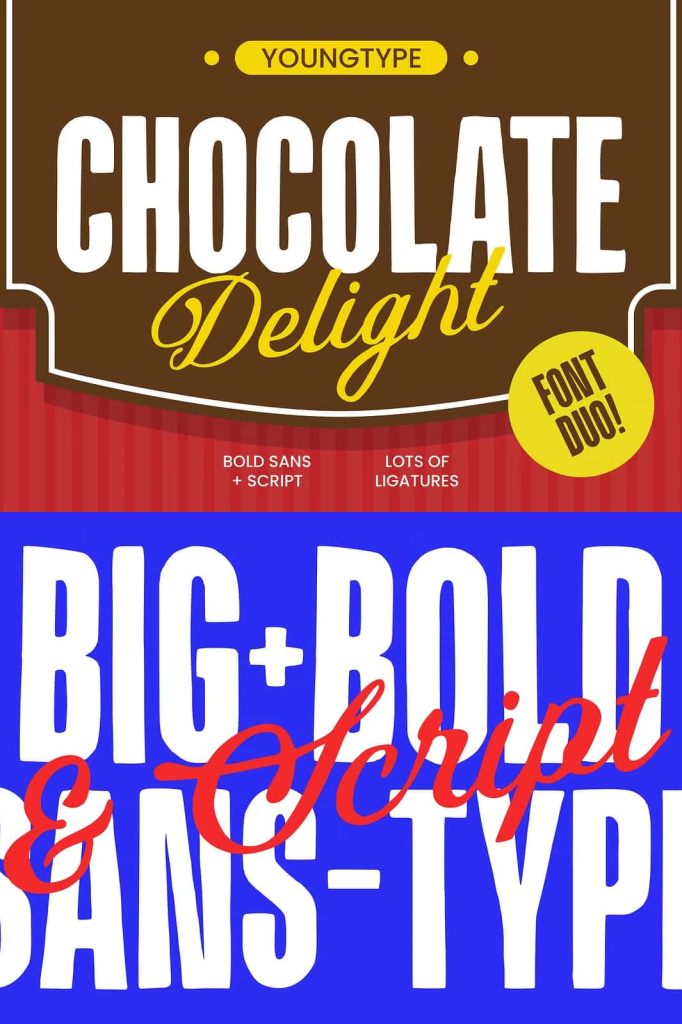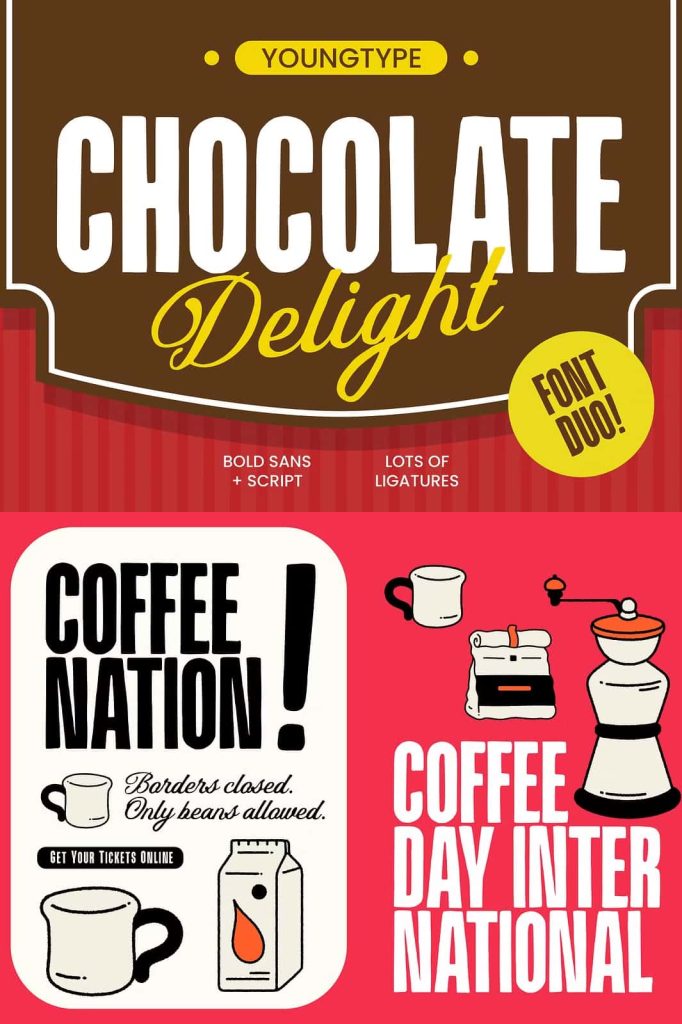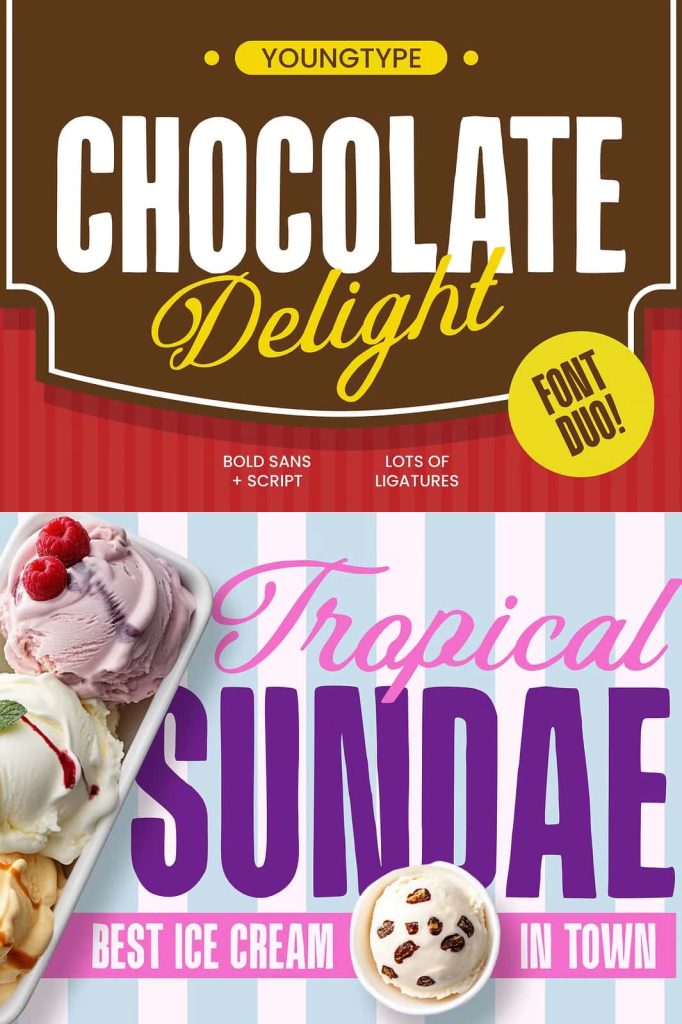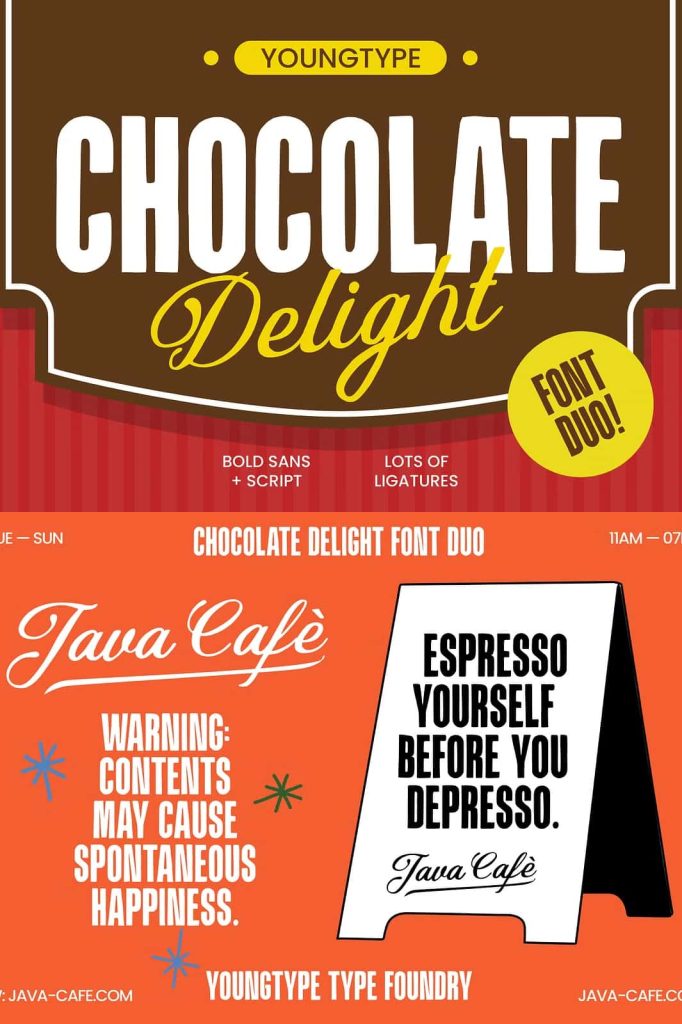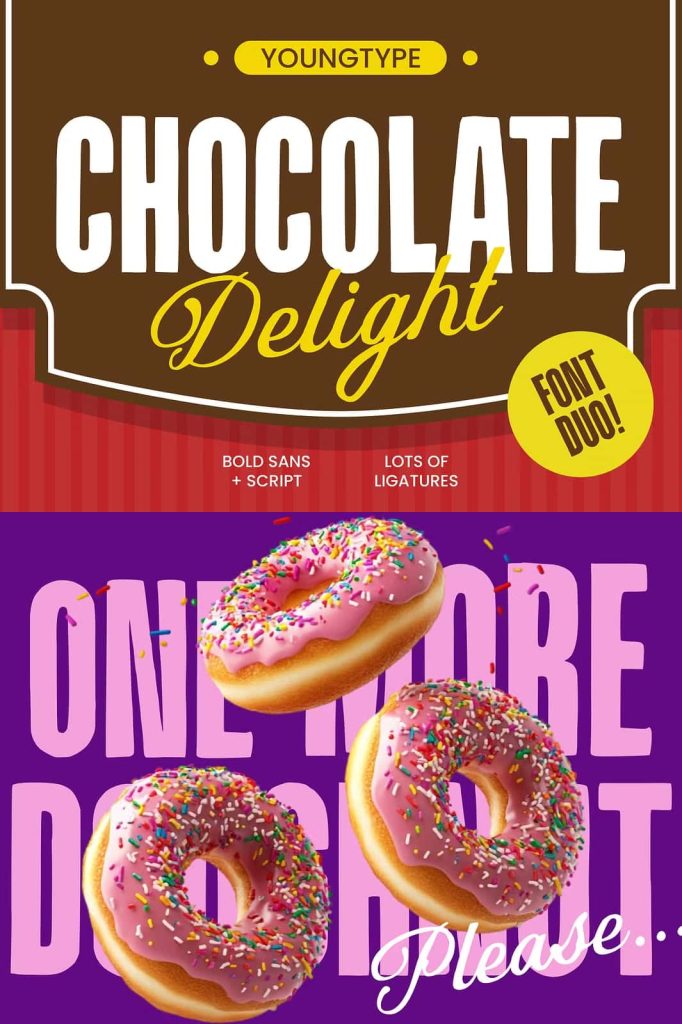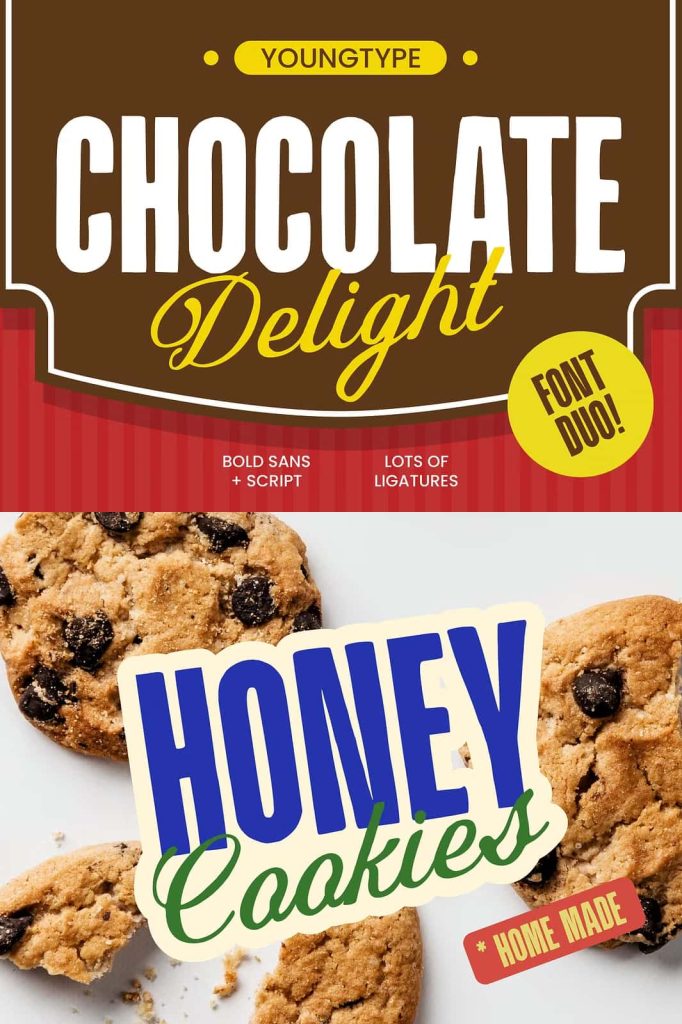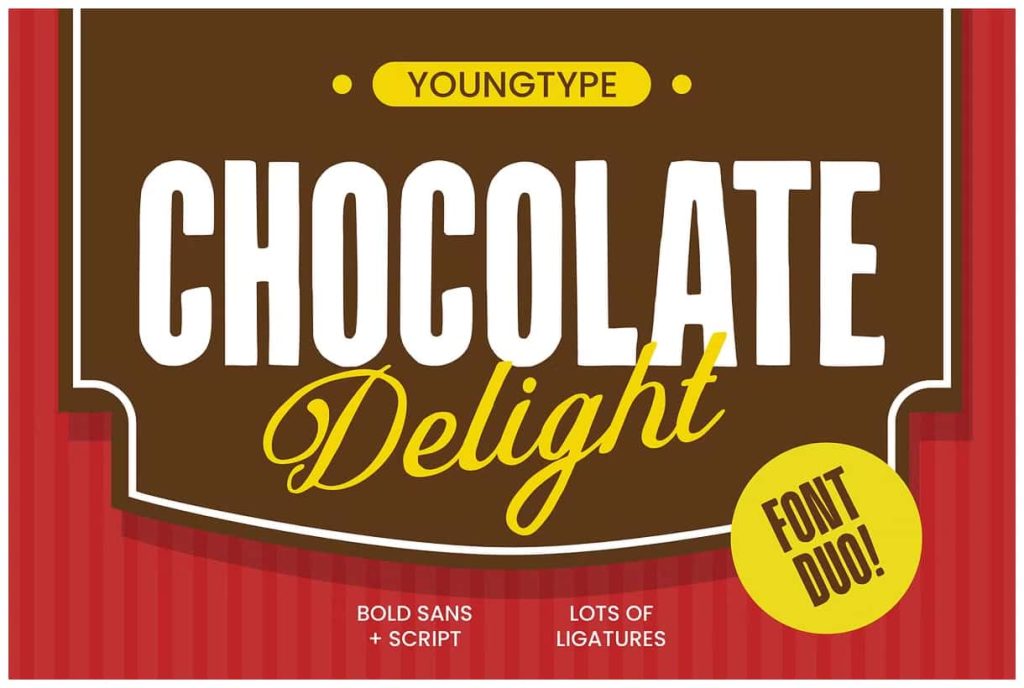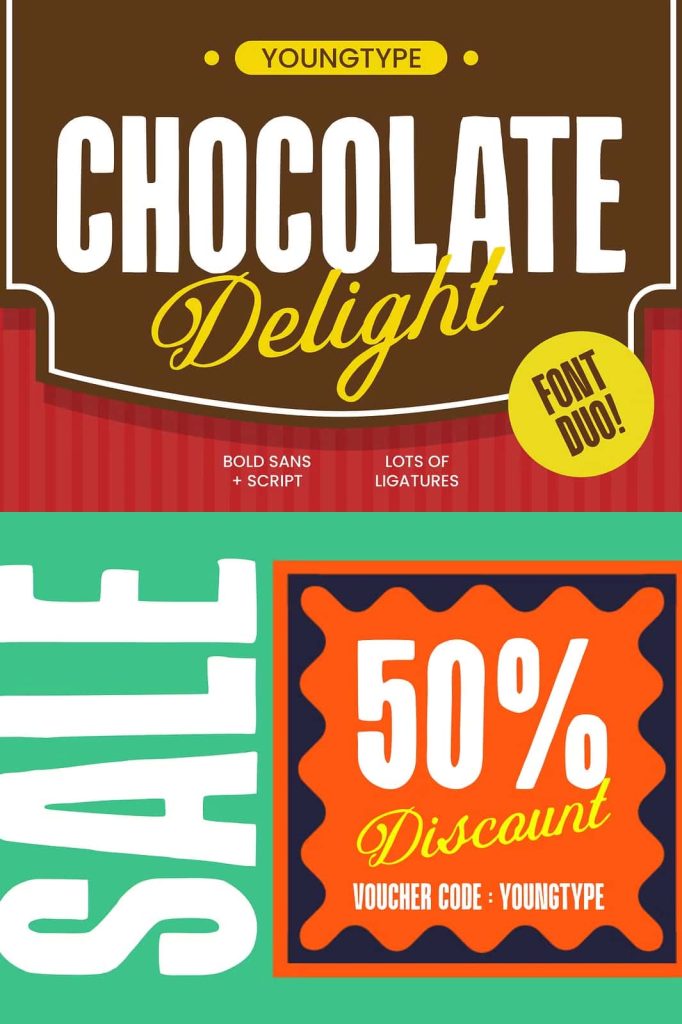
The “Chocolate Delight” font is a bold and playful typeface that combines a strong sans-serif style with a flowing script. The font duo pairs a solid, modern sans-serif for the word “CHOCOLATE” with a more elegant, cursive-like script for “Delight,” creating a charming contrast. The use of ligatures adds a unique touch to the script portion, enhancing its fluid and dynamic appearance. The bright yellow accents and the brown background evoke a warm, inviting, and delightful feel, making it perfect for food-related branding, packaging, or any project aiming to capture a sense of indulgence and joy.